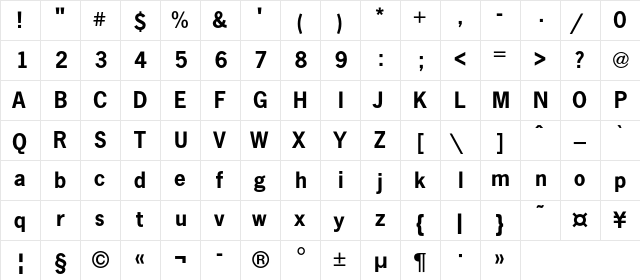
NewsPaperC Bold
Design Context for NewsPaperC Typeface
NewsPaperC offers clean, dependable letterforms without strong stylistic allegiance, making it a practical choice for designers who need flexibility. The heavy weight commands attention and anchors typographic hierarchies.
Pro Tip: Use NewsPaperC in both headline and body roles to test its range before committing to a single application.